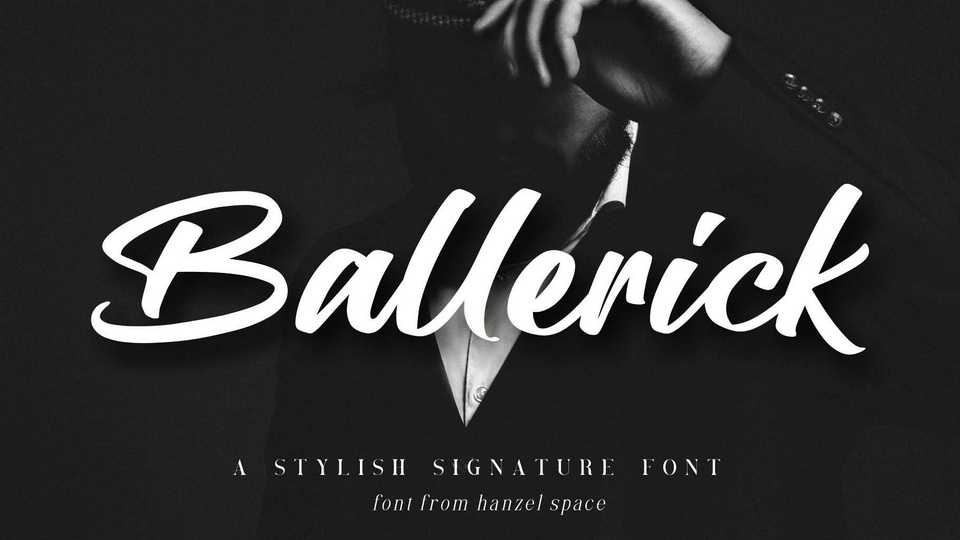
Download Ballerick font, a stylish handwritten typeface with simple and natural look. Ballerick font is perfect for modern projects, headings, blogs, logos, brandings, tagline, invitations and more.